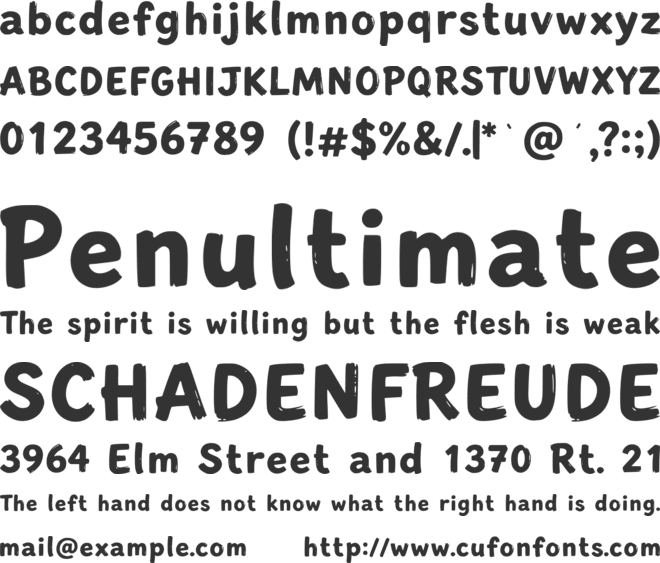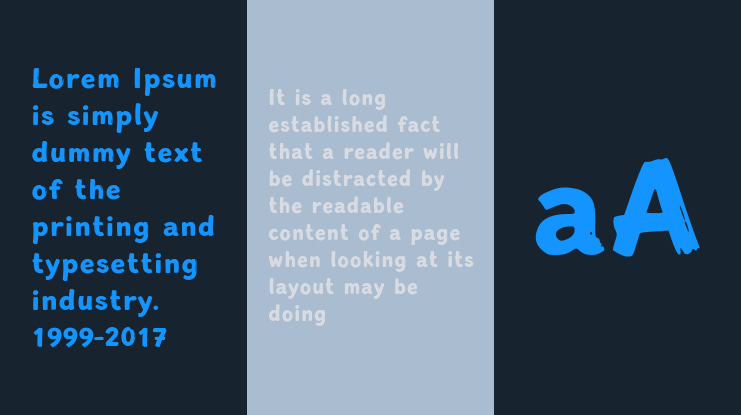
Sunday Latte Font
deedeetype
Sunday Latte – Playful Brush Display Font
Sunday Latte is a playful, brush, display font inspired by the cozy and relaxing vibe of a Sunday morning with a warm cup of latte ☕
Its soft, bold, and friendly letterforms make it highly readable and perfect for fun, cheerful, and heartwarming designs.
This font is ideal for a wide range of creative projects such as branding, posters, quotes, product packaging, social media content, logos, merchandise, and kids-friendly designs.
✨ Features
Uppercase & Lowercase
Numbers & Basic Punctuation
Clean, Rounded Letter Style
Bold and Easy to Read
🎨 Perfect For
Logo & Brand Identity
Social Media Posts
Posters & Flyers
Quotes & Typography
Packaging Design
Stickers, T-shirts & Merchandise
Kids & Fun Creative Projects
Sunday Latte adds a warm, cheerful, and modern touch to your designs.
Perfect for bringing a relaxed and joyful feeling to any creative project ☀️☕